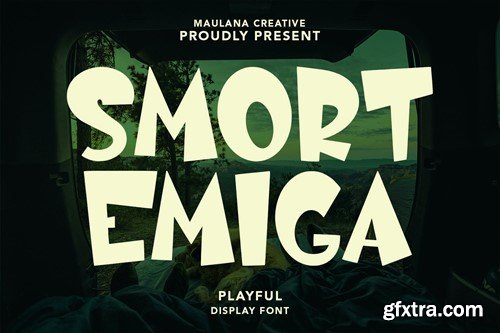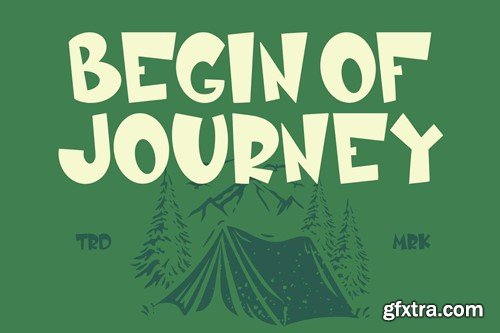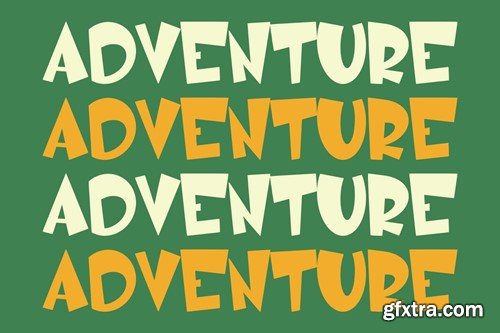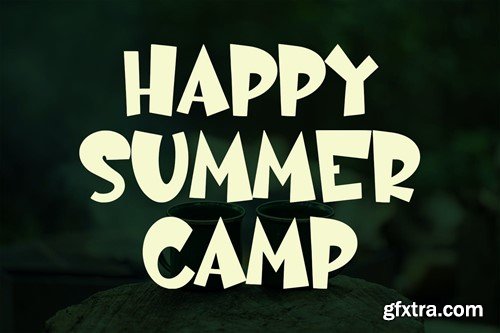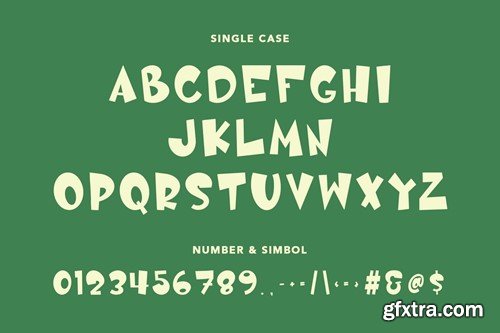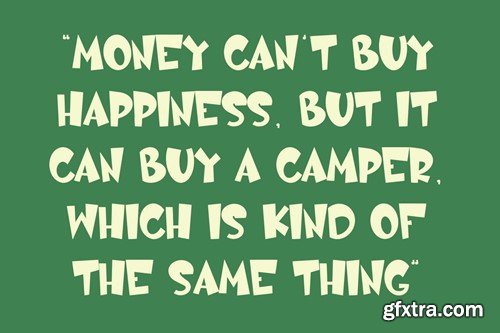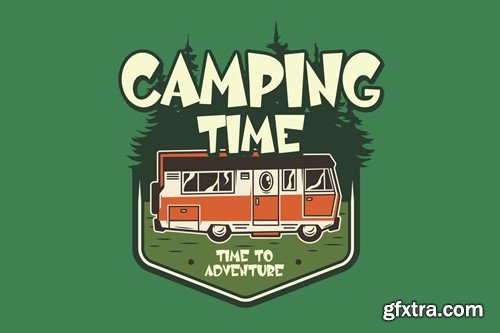
Smort Emiga 可爱展示字体 Q8BYCEQ
Smort Emiga Playful Display Font
Smort Emiga is a Playful Display Font. With Bold Sharp stroke, Upright and fun character with a bit of ligatures. To give you an extra creative work. Smort Emiga Playful Display Font support multilingual more than 100+ language. This font is good for logo design, Social media, Movie Titles, Books Titles, a short text even a long text letter and good for your secondary text font with Script. Make a stunning work with Smort Emiga Playful Display Font. What you get: Cheers, Maulana Creative